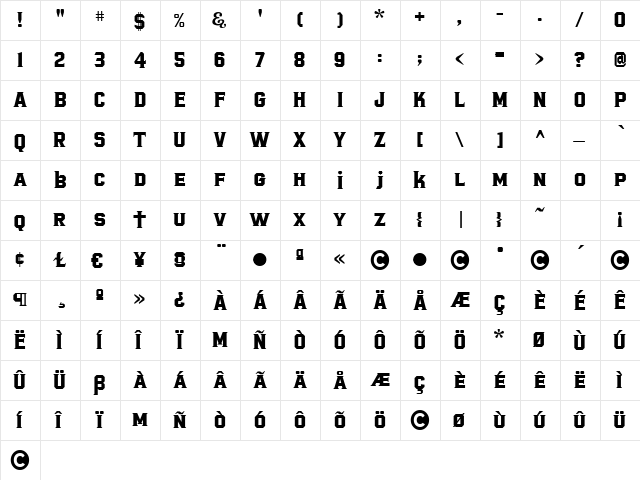
BraingeltPremium Regular Font Preview
BraingeltPremium Regular
BraingeltPremium Regular Font Details
Design Context for BraingeltPremium Typeface
BraingeltPremium takes a measured approach to typography — its balanced proportions and neutral character make it a reliable workhorse for both digital and print work.